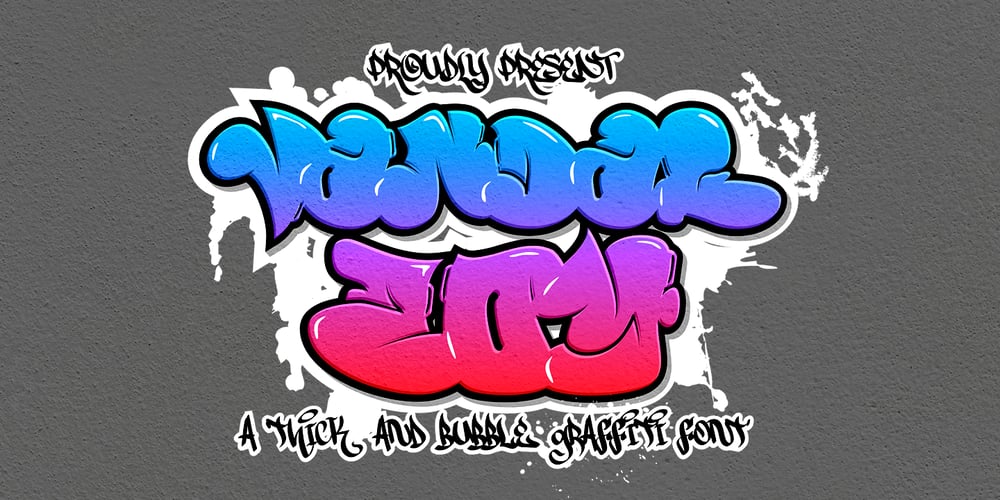
Vandal Zoy Graffiti
Vandal Zoy Graffiti font
Vandal Zoy Graffiti Font Family was designed by Sipanji and published by Sipanji21. Vandal Zoy Graffiti contains 1 styles and family package options. Vandal Zoy is a Thick font with a graffiti style and bubble looks. It will elevate a wide range of design projects to the highest level, be it branding, headings, wedding designs, invitations, signatures, logotype, wall art illustration, apparel, labels, and much more!